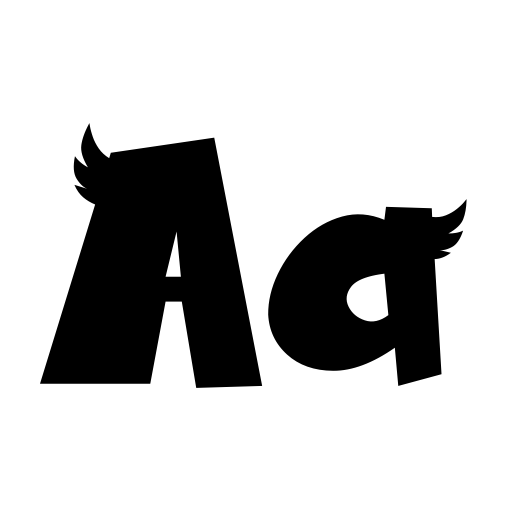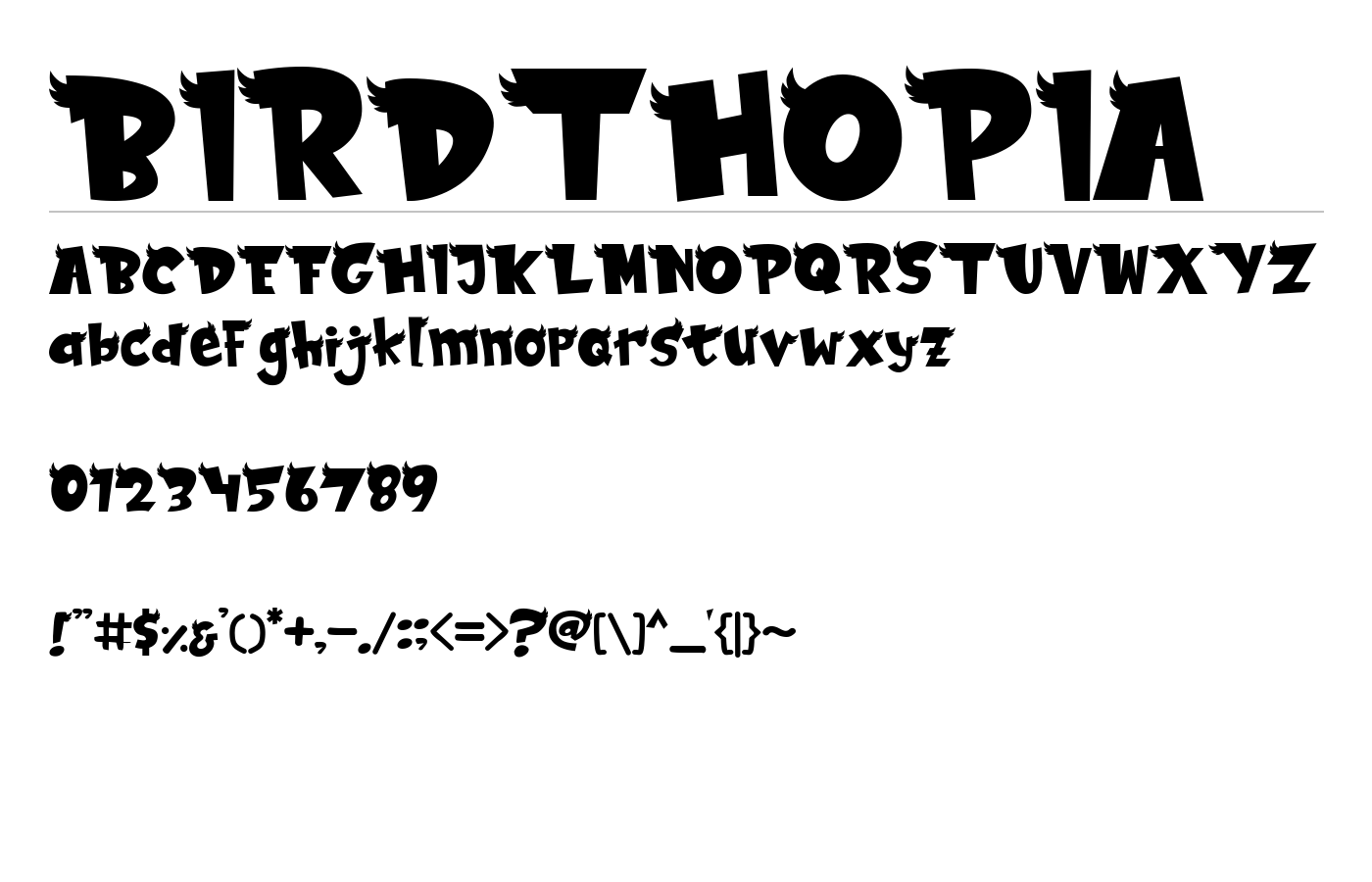
Birdthopia is a bold, playful sans serif font with a quirky personality, characterized by chunky letterforms and whimsical feather-like details on some strokes. Its irregular shapes and lively style make it perfect for fun, informal branding, children’s products, or eye-catching headlines that want to convey energy and creativity. This font works especially well in logos, posters, and playful packaging where a unique and friendly vibe is desired.
BIRDTHOPIA Font
About BIRDTHOPIA Font
| Font family | BIRDTHOPIA Font |